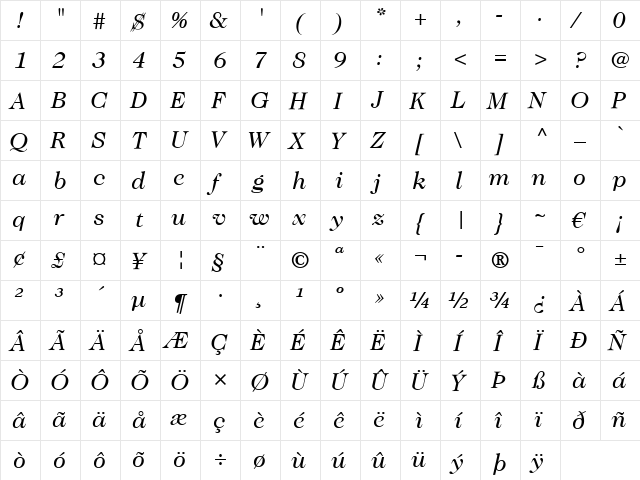
Caslon 224 LT Book Italic Font Preview
Design Context for Caslon 224 LT Book Typeface
Caslon 224 LT Book takes a measured approach to typography — its balanced proportions and neutral character make it a reliable workhorse for both digital and print work. The slanted form adds forward momentum and visual energy. Its slender proportions lend an understated elegance to any composition.